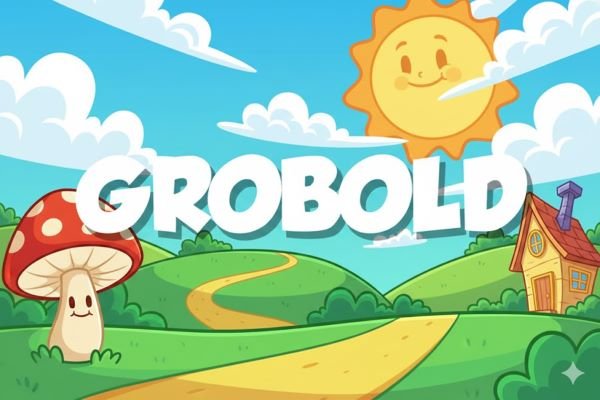
Grobold Font by Guy Buhry is a bold cartoon-style display typeface known for its chunky letterforms and playful personality. With rounded shapes and strong visual weight, it’s perfect for kids’ designs, games, posters, and fun branding.
Grobold delivers high readability while adding humor, energy, and a lively character to creative projects. Its expressive style makes it a great fit for titles, logos, and social media graphics that aim to feel energetic and approachable.
Designer: Guy Buhry
Style: Cartoon, Display, Bold, Rounded